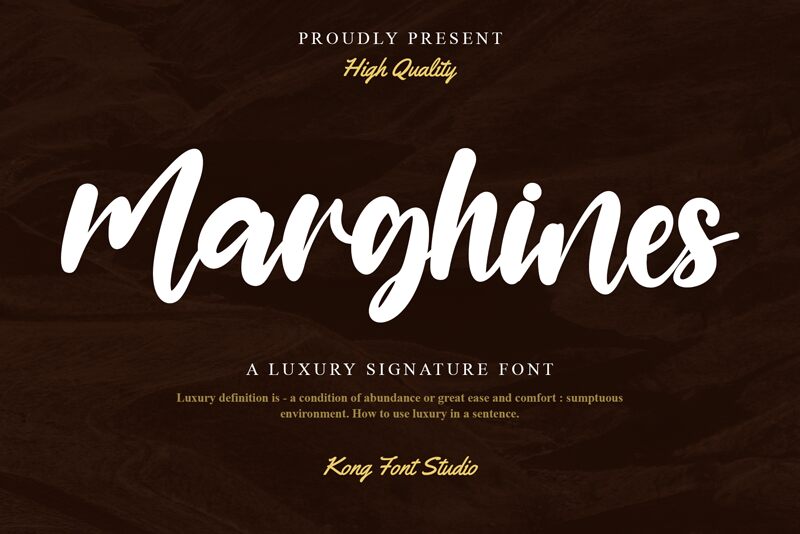
Marghines, a captivating creation by Kong Font, is a stunning semi-bold font that elegantly mimics the art of handwritten signatures. With its marker-style strokes and distinctive flair, Marghines adds a touch of sophistication to any project.
Perfect for branding materials, such as logos and business cards, this font effortlessly portrays professionalism and creativity. Its versatility also makes it suitable for invitations, greeting cards, and personalized stationery.
Embrace the uniqueness of Marghines and let it elevate your designs with its artistic charm.